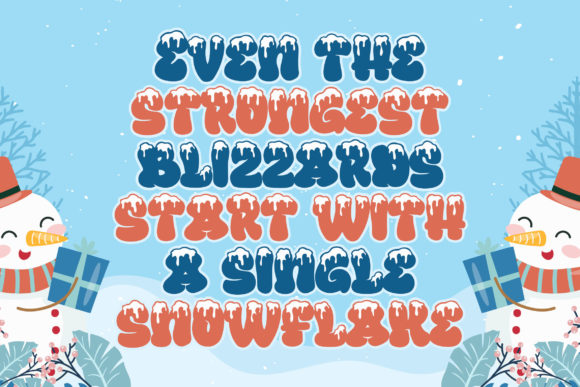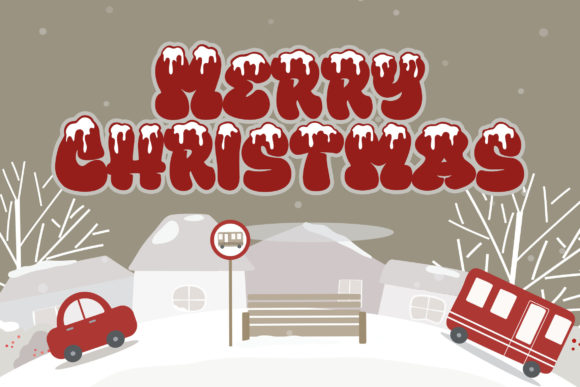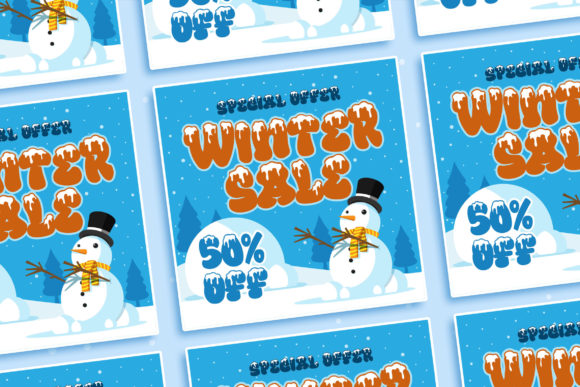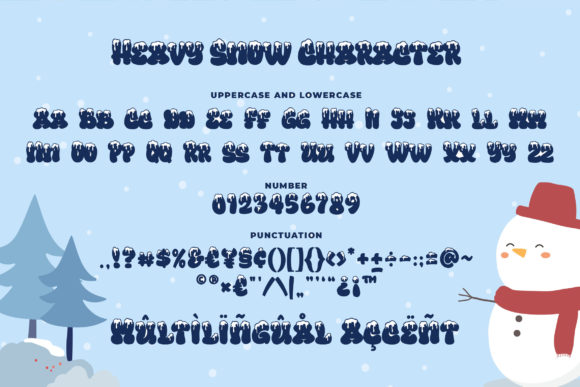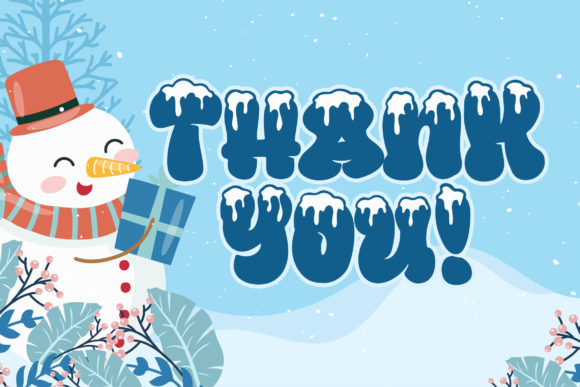
Introducing Heavy Snow Font: The Perfect Addition to Your Design Arsenal
Are you tired of using the same old fonts in your designs? Look no further than Heavy Snow Font, a cool, bold, and thick lettered display font that’s sure to add a touch of magic to your creations. In this article, we’ll dive into the world of Heavy Snow Font, exploring its features, uses, and benefits, and why it’s an amazing choice for designers and crafters alike.
What is Heavy Snow Font?
Heavy Snow Font is a unique and eye-catching display font that’s perfect for a variety of design projects. Its bold and thick lettering makes it stand out from the crowd, adding a fun and playful touch to any design. Whether you’re working on a cartoon-related project, a children’s game, or simply want to add some personality to your design, Heavy Snow Font is an excellent choice.
Key Features of Heavy Snow Font
- Bold and Thick Lettering: Heavy Snow Font features bold and thick lettering that makes it perfect for headlines, titles, and other display text.
- Cool and Playful: The font has a fun and playful vibe that’s perfect for cartoon-related designs, children’s games, and other projects that require a lighthearted touch.
- High-Quality Design: Heavy Snow Font is designed with high-quality craftsmanship, ensuring that it looks great in any design.
- Easy to Read: Despite its bold and thick lettering, Heavy Snow Font is easy to read, making it perfect for use in a variety of design projects.
Uses for Heavy Snow Font
Heavy Snow Font is a versatile font that can be used in a variety of design projects, including:
- Cartoon-Related Designs: Heavy Snow Font is perfect for cartoon-related designs, such as character logos, titles, and other graphics.
- Children’s Games: The font’s playful and fun vibe makes it an excellent choice for children’s games, educational materials, and other kid-friendly projects.
- Posters and Flyers: Heavy Snow Font is great for use in posters and flyers, adding a bold and eye-catching touch to your designs.
- Social Media Graphics: The font is also perfect for social media graphics, such as Facebook posts, Instagram stories, and other social media content.
Benefits of Using Heavy Snow Font
There are many benefits to using Heavy Snow Font in your designs, including:
- Unique and Eye-Catching: Heavy Snow Font is a unique and eye-catching font that’s sure to grab attention.
- Time-Saving: The font is easy to use and can save you time in your design projects.
- Versatile: Heavy Snow Font can be used in a variety of design projects, making it a great addition to your design arsenal.
- High-Quality: The font is designed with high-quality craftsmanship, ensuring that it looks great in any design.
Tips for Using Heavy Snow Font
Here are some tips for using Heavy Snow Font in your designs:
- Use it for Headlines and Titles: Heavy Snow Font is perfect for use in headlines and titles, adding a bold and eye-catching touch to your designs.
- Experiment with Colors: The font looks great in a variety of colors, so don’t be afraid to experiment and find the perfect color for your design.
- Pair it with Other Fonts: Heavy Snow Font can be paired with other fonts to create a unique and eye-catching design.
In conclusion, Heavy Snow Font is a cool, bold, and thick lettered display font that’s perfect for a variety of design projects. Its unique and eye-catching design makes it a great addition to your design arsenal, and its versatility ensures that it can be used in a range of projects. Whether you’re a designer, crafter, or simply someone who loves to create, Heavy Snow Font is an amazing choice.